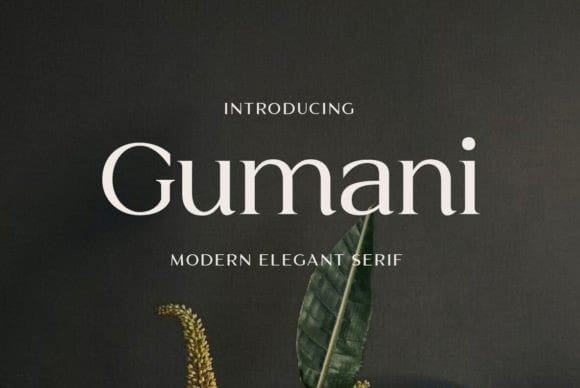
Gumani Font
Gumani Font is a typeface with the characteristics of smooth yet firm lines. It has an elegant serif shape with balanced letter proportions.
Gumani Serif Font offers clarity and ease of reading, making it suitable for designs that require good readability such as publications, books, articles, and logo and brand identity designs.